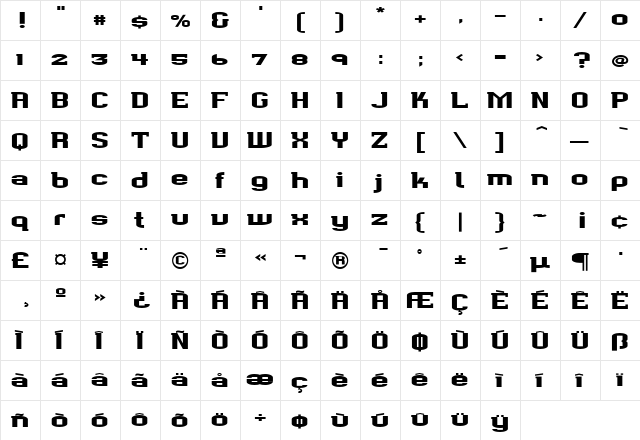
Werkman Medium
Design Context for Werkman Typeface
Werkman takes a measured approach to typography — its balanced proportions and neutral character make it a reliable workhorse for both digital and print work.